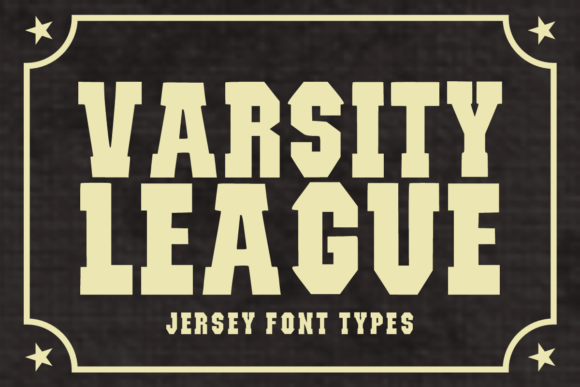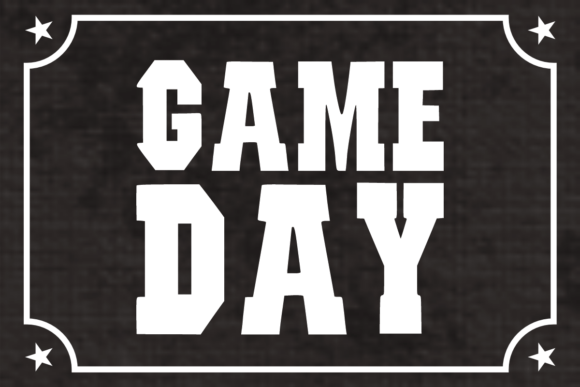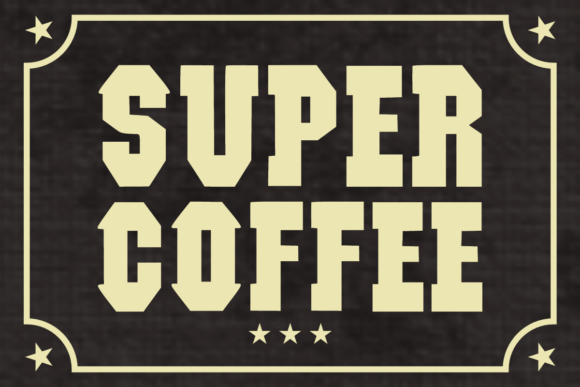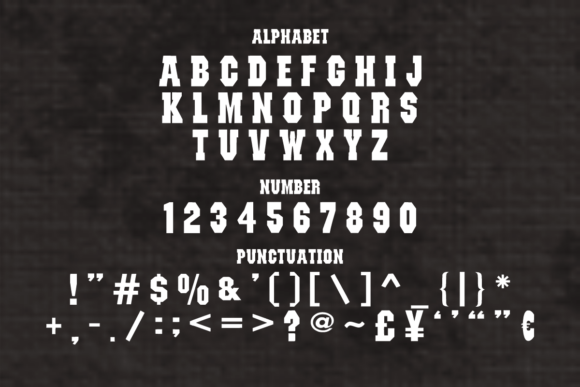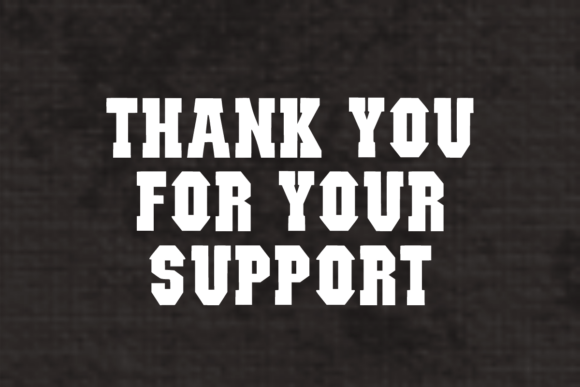
Introduction to Iron Saddle Font
Have you ever been in the middle of a creative project, staring at a blank canvas or screen, searching for that one elusive element to take your design to the next level? For many designers, that moment of inspiration is what drives them to create something truly amazing. And for those seeking a high-quality design resource to elevate their work, look no further than the Iron Saddle Font.
This powerful display font combines the energy of modern gaming with the classic style of varsity athletics, making it the perfect addition to any creative project. With its heavy, geometric block shapes and sharp faceted details, Iron Saddle Font is sure to grab attention and leave a lasting impression. Plus, with a free download available, you can unleash your inner champion and add this versatile design resource to your toolkit today.
Whether you’re designing e-sports team logos, sports jerseys, or video game streams, the Iron Saddle Font is a valuable asset for any designer looking to create high-impact, heroic looks that instantly resonate with their audience. Its smooth, clean edges make cutting and printing a breeze, and with a transparent background, the possibilities are endless.
Key Features of Iron Saddle Font
- High-quality, professional font suitable for creative projects, including book covers, magazines, and posters.
- The font features a transparent background, allowing for seamless integration with background images or colors.
- Iron Saddle Font is available in a range of sizes, from 12 to 72 points, making it suitable for various design applications.
- With a resolution of 300 DPI, the font is ideal for print and digital projects that require high-quality typography.
- The unique, rustic design of Iron Saddle Font adds a touch of elegance and sophistication to any creative project.
Honest Review: Iron Saddle Font
The Iron Saddle Font is a unique and stylish font that has caught my attention. As a designer, I appreciate its versatility and the creative possibilities it offers for various projects.
- ✨ High-quality design: The font’s intricate details and smooth lines make it perfect for creative projects that require a touch of sophistication.
- ✨ Wide range of applications: Iron Saddle Font is suitable for both print and digital projects, including branding, logos, and even web design.
- ⚠️ Limited font weights: The font family includes only a few weights, which might limit its usage in certain projects that require more variety.
- ⚠️ Transparent background: The font’s background is transparent, which can make it challenging to use in certain design scenarios, such as when combining it with busy backgrounds.
Overall, I’m impressed with the Iron Saddle Font’s potential and versatility. While it has some limitations, it remains a valuable design resource for anyone looking to add a touch of elegance to their creative project.
How to Use Iron Saddle Font
To use the Iron Saddle Font in PowerPoint or Word, download the font file and install it on your computer. Then, select the font as the text style in your document or presentation. The Iron Saddle Font is a great choice for presentations and documents that require a professional, high-quality look.
Tips for Getting the Most Out of Iron Saddle Font
For the best results, use the Iron Saddle Font on a transparent background to create a clean and modern design. You can also experiment with different font sizes and styles to add visual interest to your design.
Common Use Cases for Iron Saddle Font
The Iron Saddle Font is a popular choice for creative projects, including logos, business cards, and social media graphics. It’s also a great option for designing documents, presentations, and websites that require a high-quality, professional look.